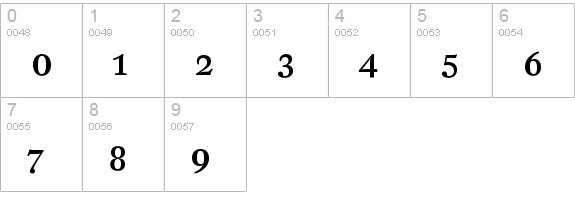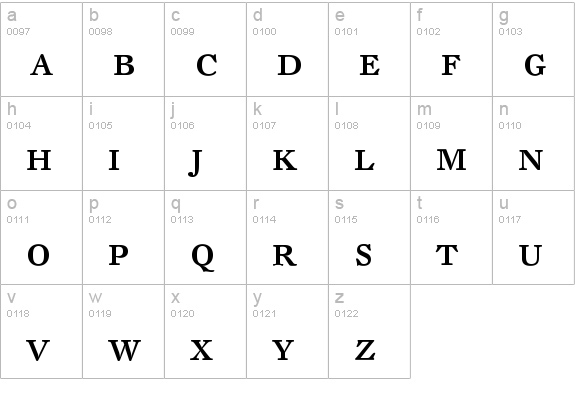
DTLFleischmannTCaps Font Details
DTLFleischmannTCaps font is a stunning display typeface that exudes elegance and sophistication. With its finely crafted letter forms and intricate details, this font is perfect for adding a touch of luxury to any design project. The classic design of the font gives it a timeless appeal, making it suitable for a wide range of applications, from branding to editorial design. What makes DTLFleischmannTCaps font even more appealing is that it is available for free download at FontsMarket.com. This means that you can easily access and use this beautiful font in your projects without any cost involved. Whether you are a designer looking to elevate your work or a hobbyist wanting to add a touch of class to your creations, DTLFleischmannTCaps font is a fantastic choice that won't break the bank. Download it today and start creating stunning designs with this exquisite typeface.